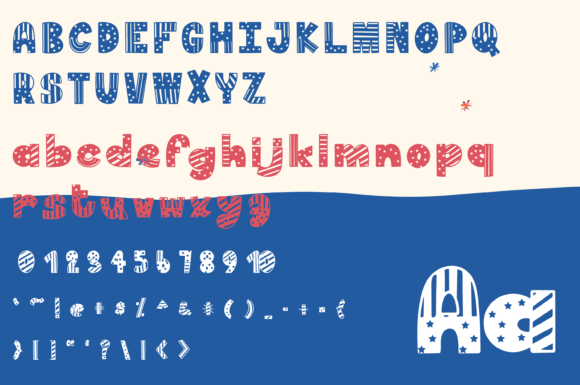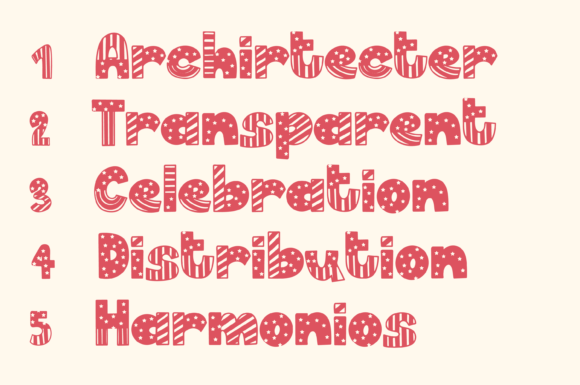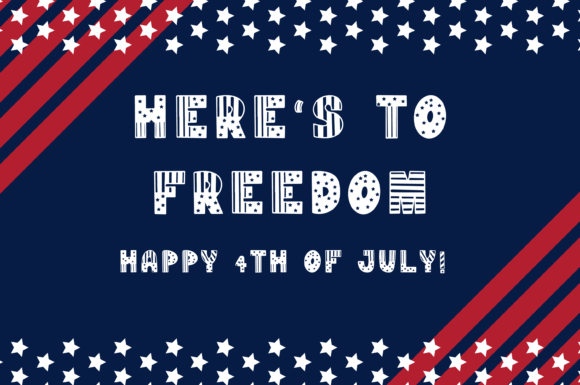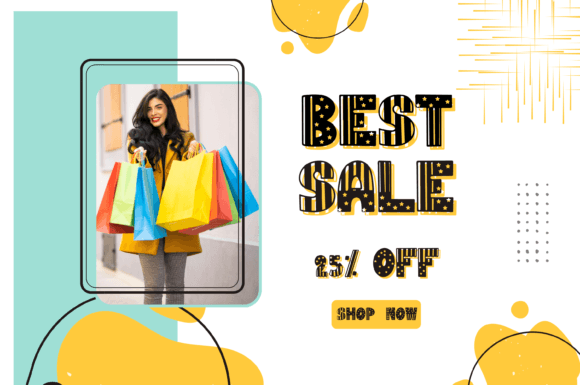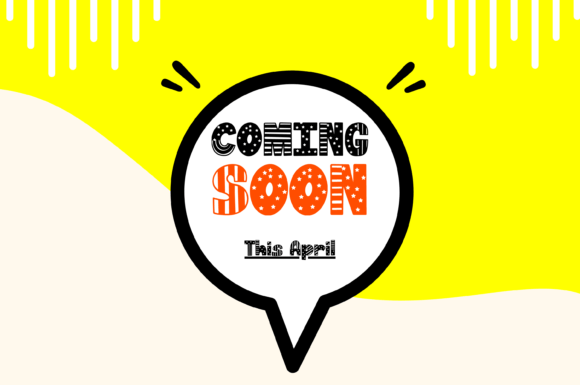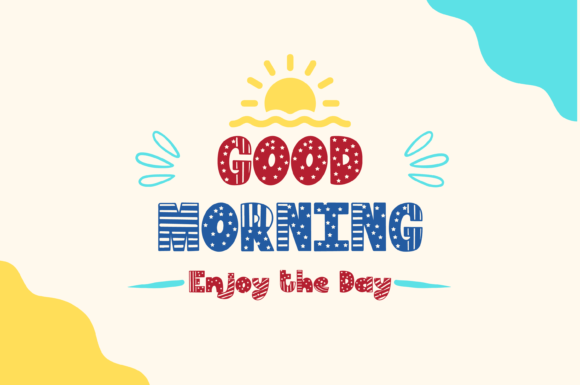
Introducing Fourth July Font: A Whimsical and Clean Handwritten Style
Are you tired of using the same old fonts for your creative projects? Look no further! Fourth July Font is a beautiful, whimsical, and clean handwritten font that can add a touch of elegance and personality to your designs. In this article, we’ll explore the features and benefits of Fourth July Font, and how it can elevate your creative ideas to the next level.
A Versatile Font for Various Projects
Fourth July Style is a versatile font that can be matched with an incredibly large set of projects. Whether you’re working on a DIY craft, a branding project, or a digital design, this font can easily adapt to your needs. Its clean and handwritten style makes it perfect for a wide range of applications, from party invitations and greeting cards to logos, posters, and social media graphics.
What Makes Fourth July Font Stand Out?
So, what sets Fourth July Font apart from other fonts? Here are a few features that make it a standout:
- Whimsical and Clean Design: Fourth July Font boasts a beautiful, whimsical design that’s both clean and elegant. Its handwritten style adds a touch of personality to your designs, making them more engaging and eye-catching.
- Highly Versatile: This font is incredibly versatile and can be used for a wide range of projects, from digital designs to print materials.
- Easy to Read: Despite its whimsical design, Fourth July Font is easy to read, making it perfect for body text and headlines.
- Unique and Creative: With Fourth July Font, you can add a unique touch to your designs and make them stand out from the crowd.
How to Use Fourth July Font in Your Projects
Using Fourth July Font in your projects is easy! Here are a few ideas to get you started:
- Party Invitations: Create beautiful and eye-catching party invitations for birthdays, weddings, and other celebrations.
- Greeting Cards: Design personalized greeting cards for special occasions, such as holidays, anniversaries, and birthdays.
- Branding Projects: Use Fourth July Font to create unique and memorable logos, business cards, and letterheads.
- Digital Designs: Add a touch of elegance to your digital designs, such as social media graphics, blog posts, and website headers.
- Crafting Projects: Use Fourth July Font to create beautiful and unique craft projects, such as handmade cards, scrapbooking, and DIY decor.
Tips for Getting the Most Out of Fourth July Font
Here are a few tips to help you get the most out of Fourth July Font:
- Experiment with Different Sizes: Try using Fourth July Font in different sizes to create visual interest and hierarchy in your designs.
- Pair it with Other Fonts: Experiment with pairing Fourth July Font with other fonts to create a unique and eye-catching combination.
- Use it Consistently: Use Fourth July Font consistently throughout your design to create a cohesive and professional look.
| Font Name | Fourth July Font |
| Author | AchiArt |
In conclusion, Fourth July Font is a beautiful and versatile font that can add a touch of elegance and personality to your creative projects. Its whimsical and clean design makes it perfect for a wide range of applications, from party invitations and greeting cards to logos, posters, and social media graphics. With its ease of use and flexibility, Fourth July Font is a must-have for designers and crafters looking to elevate their creative ideas to the next level.